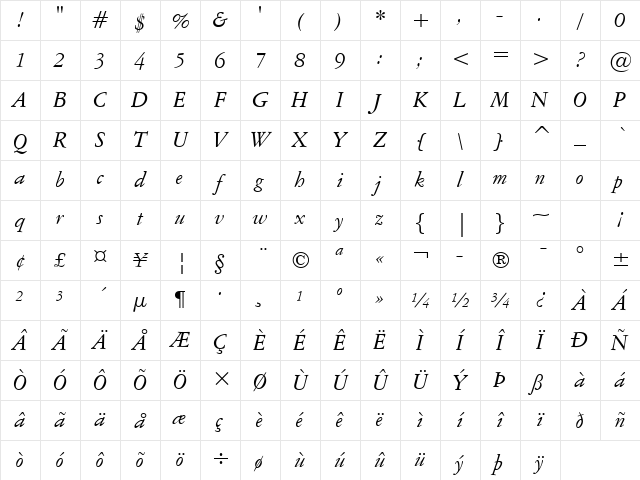
AmeriGarmnd BT Italic
Design Context for AmeriGarmnd BT
AmeriGarmnd BT is a composed and adaptable typeface that performs quietly and consistently across a wide range of design contexts. The slanted form adds forward momentum and visual energy.
Pro Tip: Use AmeriGarmnd BT for emphasis, pull quotes, and subheadings where its slanted energy can add rhythm to the layout.